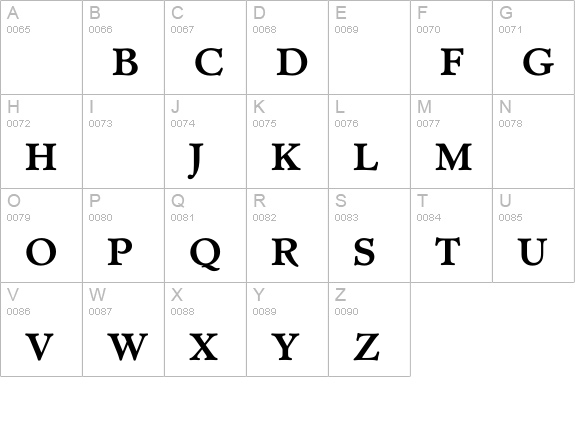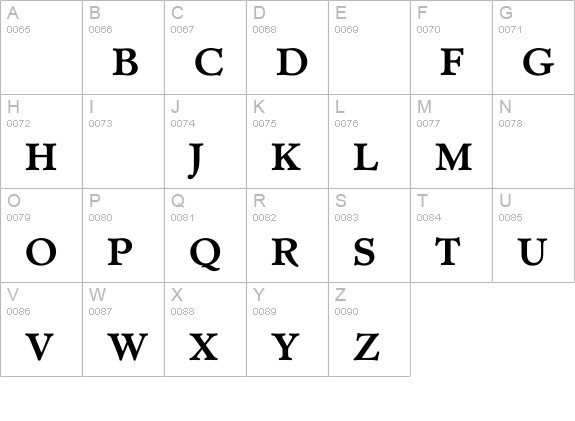
TCAdministerBold Font Details
TCAdministerBold font is a bold and powerful typeface that is perfect for making a statement. With its strong and commanding presence, it demands attention and leaves a lasting impression. This font is ideal for headlines, logos, and any design that requires a bold and confident look. What sets TCAdministerBold font apart is that it is not only visually striking, but it is also available for free. That's right, you can download this incredible font for no cost at all. It is freely available to download at FontsMarket.com, a trusted source for high-quality fonts. Whether you are a graphic designer looking to add some flair to your projects or a business owner in need of a standout logo, TCAdministerBold font has got you covered. Its sleek and stylish design will elevate any design and make it stand out from the crowd. With its generous character set and versatile nature, TCAdministerBold font allows you to create stunning designs that truly capture your audience's attention. It provides the perfect balance of uniqueness and legibility, making sure that your message is effectively communicated. Don't miss out on this amazing opportunity to enhance your designs with TCAdministerBold font. Download it for free at FontsMarket.com and unleash your creativity. Whether you're a seasoned designer or just starting out, this font will undoubtedly become an invaluable addition to your typography arsenal.